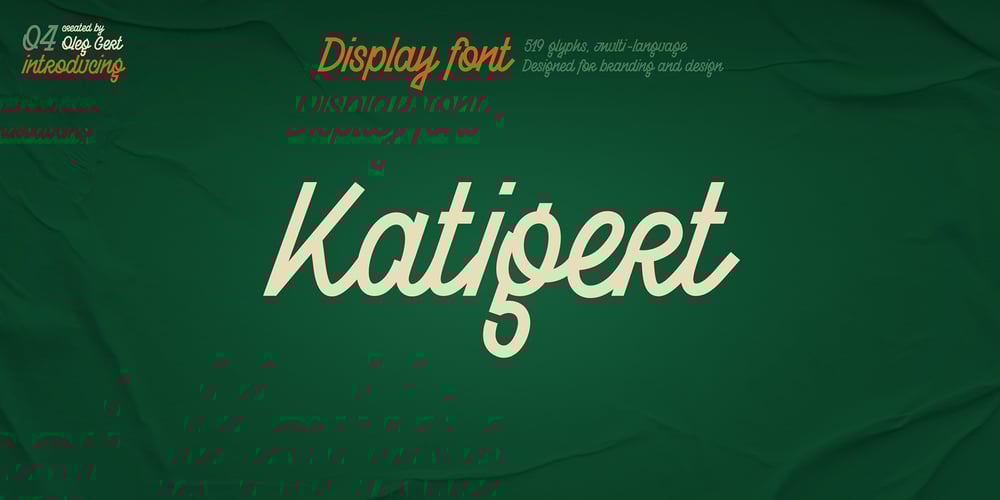
Katigert Font Family was designed by Oleg Gert and published by Oleg Gert. Katigert contains 1 styles and family package options. Katigert – is a rather friendly italic with a touch of measured severity, combines very sharp angles and bold shapes. The font works best for display. The font includes extended Cyrillic and Latin alphabets, punctuation marks and currencies.